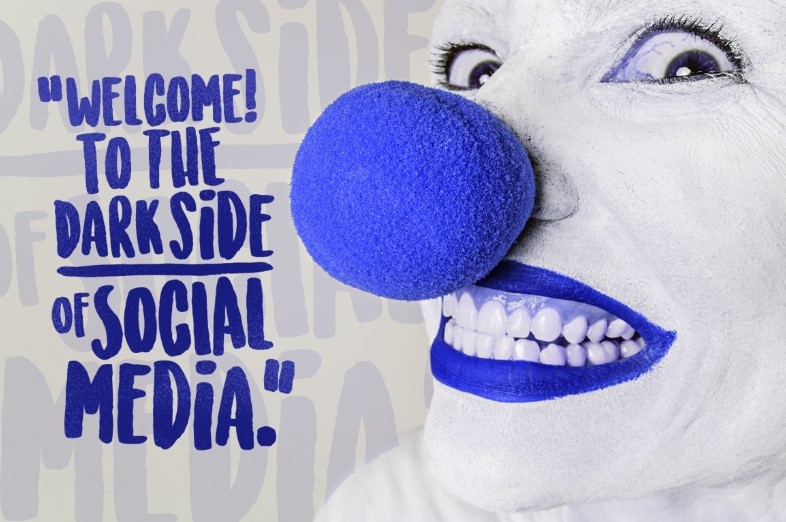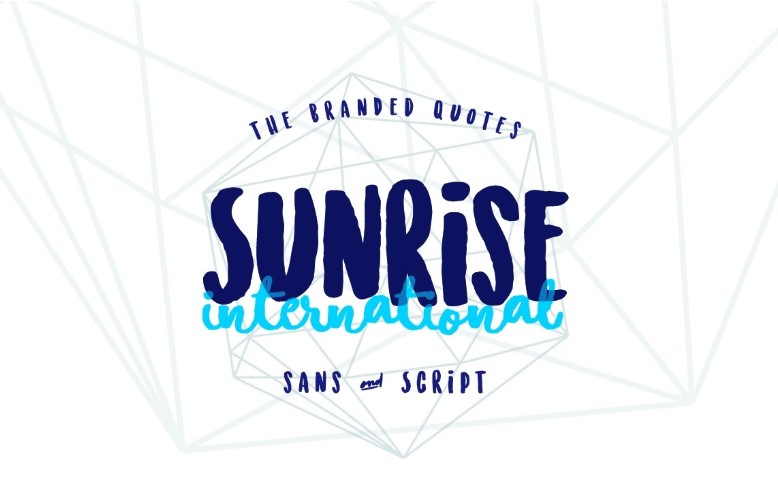
Sunrise International Font
Sunrise International Font is widely famous for its Copy and pastes function. This also considered a great text generator. This font has been attractively not unusual via the usage of a pointer with a tinny brush on acrylic newspaper. Its appearances are remarkable in dark paint colors.
It’s far the primary ailerons font, and we discover it impossible to resist because of its pinnacle-notch remarkable styles. Unfortunately, you may maximum really use it in adobe photoshop and illustrator. Sunrise International Font Free This font has a fashionable appearance and touches with its threesome of outlines in respectively letter creation. Use it on commonplace to big sizes for headings, works of art and lots extra.